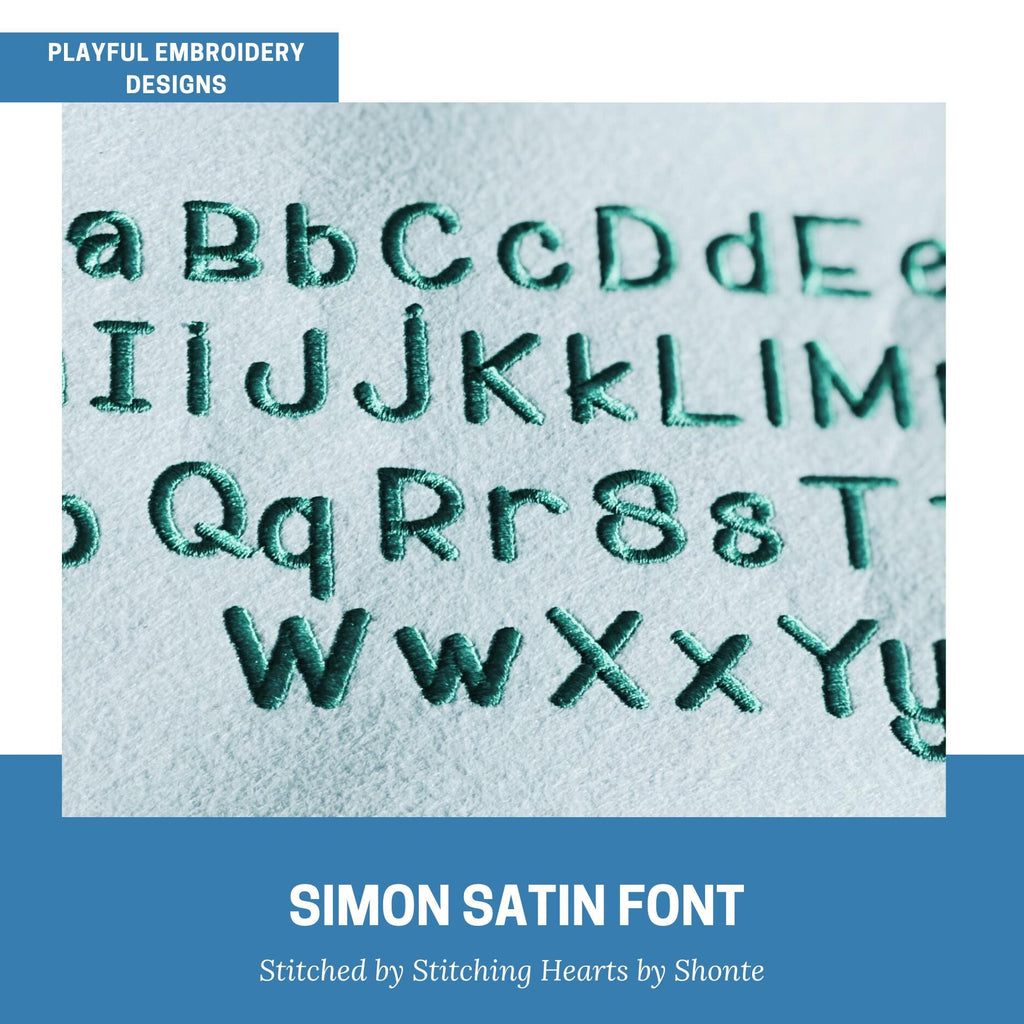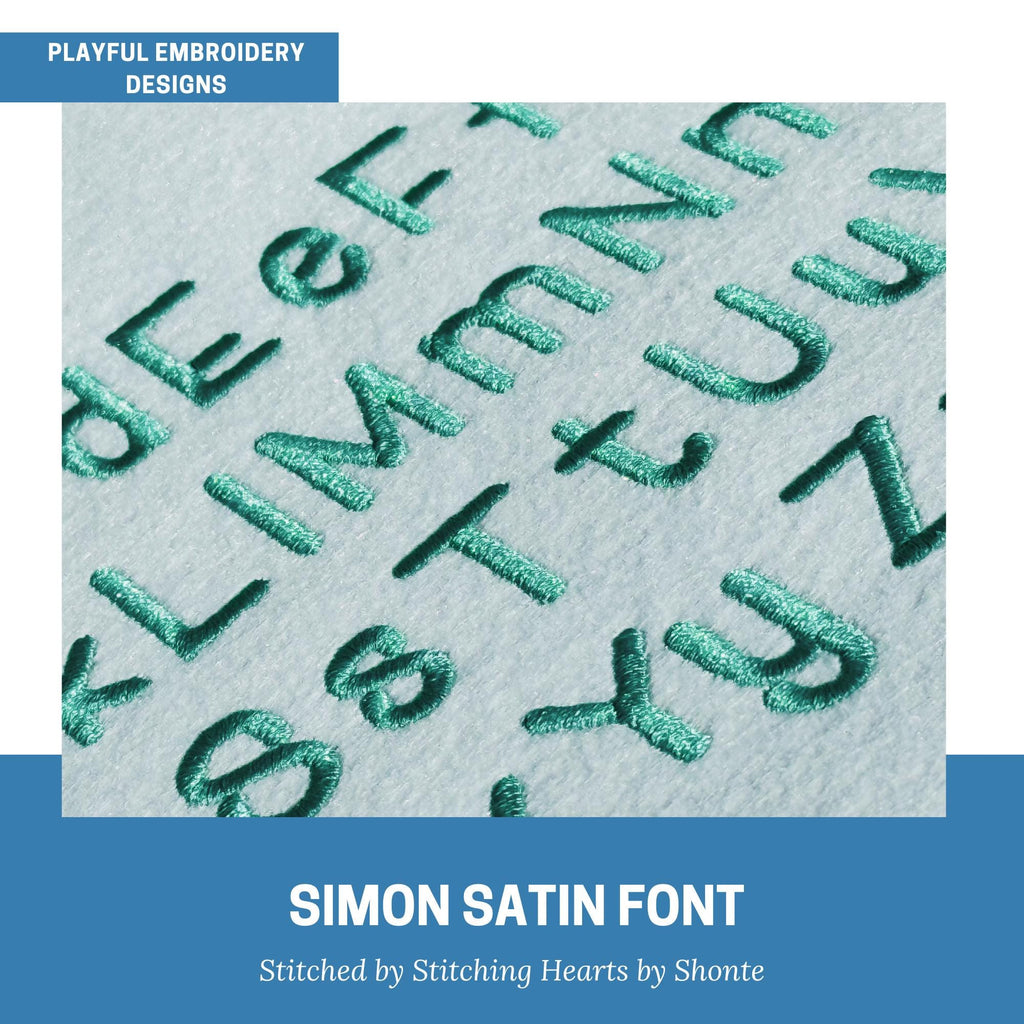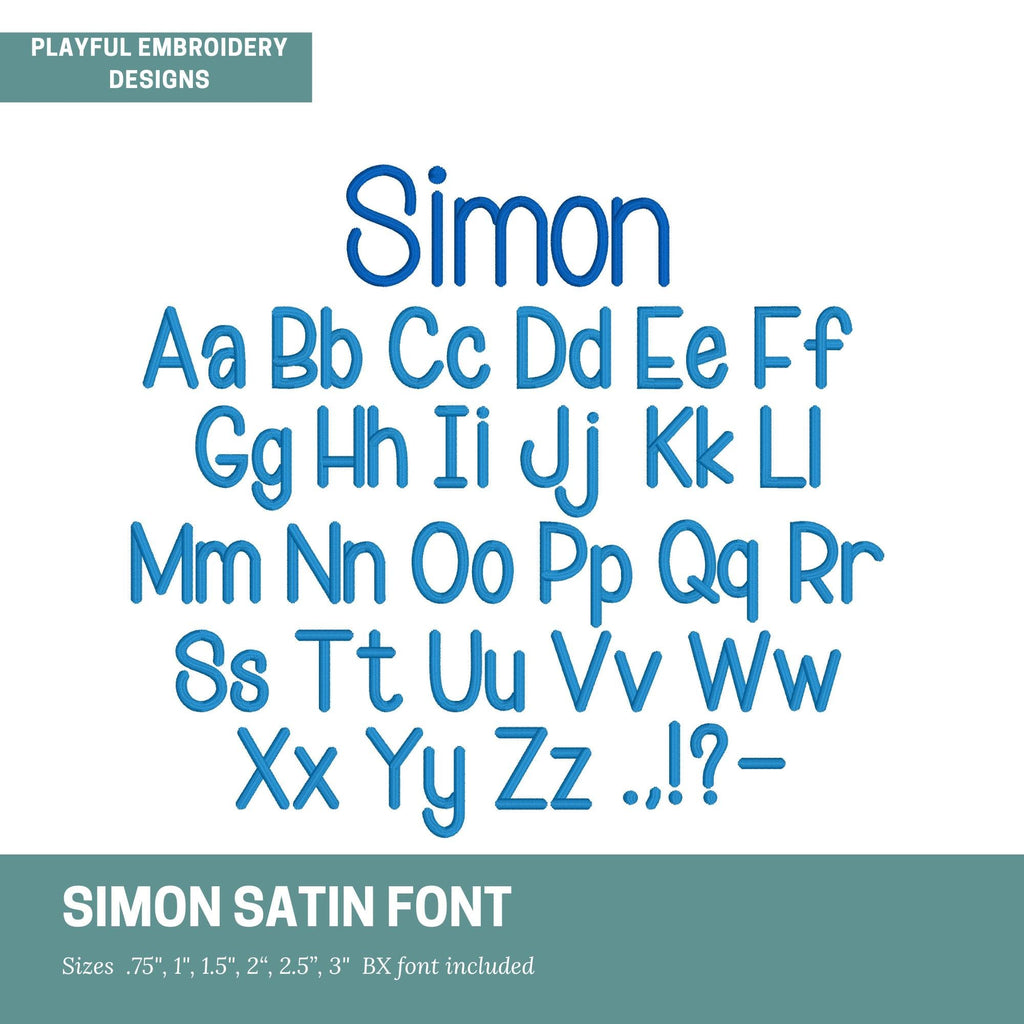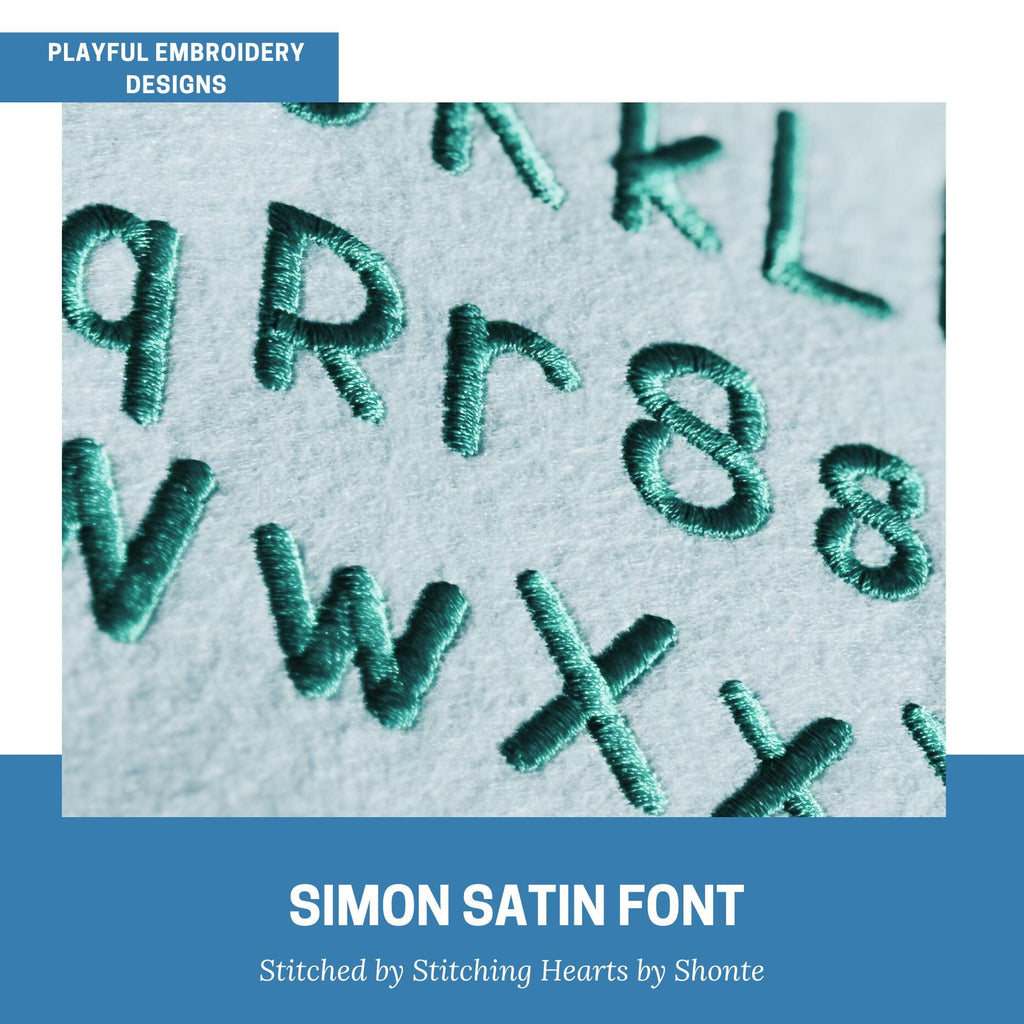
Simon Satin Stitch Embroidery Font, Handwriting Satin Stitch Machine Embroidery Font, Playful Embroidery font, bx included
Introducing the Simon satin stitch handwriting machine embroidery font. This thick, print font is perfect for back to school and children designs.